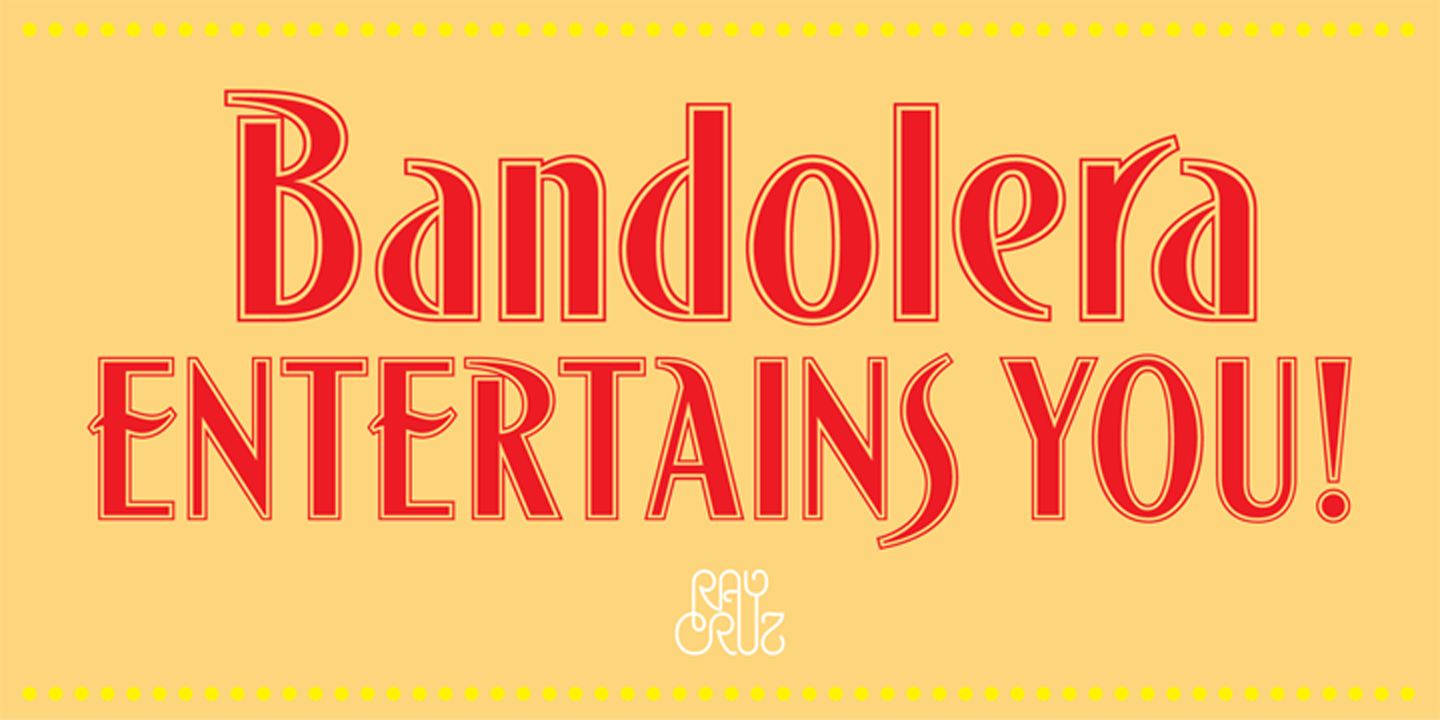
What makes Bandolera Font so exciting is its undeniable personality and vibrant character. It often features a unique, almost calligraphic or hand-drawn quality, with expressive strokes that convey movement and spontaneity. This font doesn't just display text; it tells a tale, inviting the viewer into a world of exploration and creativity. It stands out from conventional typefaces, offering a refreshing and authentic feel that is both memorable and engaging. It’s a typeface that embodies a free spirit, perfect for designs that want to break away from the mundane and inject a sense of discovery.
The Bandolera Font family, while celebrating its singular, expressive style, may offer variations to enhance its utility. You might find complementary weights such as a Regular, Bold, or perhaps a more condensed version, allowing for flexibility in different design contexts. Many professional versions of Bandolera Font also include an array of stylistic alternates, ligatures, or extended character sets, which allow designers to further customize the text and achieve truly unique, handcrafted typographic compositions. Unleash your creative journey with Bandolera Font Free Download!